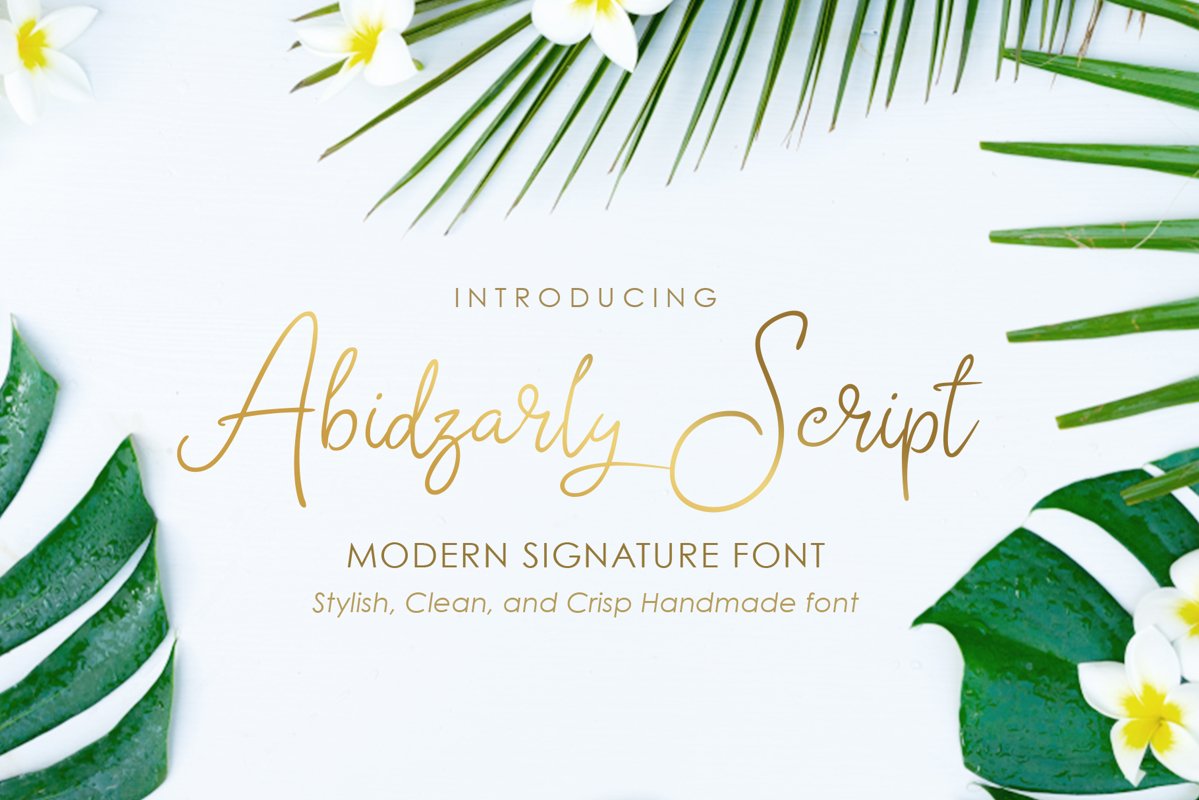
Abidzarly Script
**Introducing**
A modern signature style font that have stylish, clean, simple and crisp handmade font called Abidzarly Script.
Abidzarly Script are made carefully to fit the need of modern calligraphy font that have the smooth and flowing in it's glyphs. The glyps shape are simple yet sophisticaded, It's easy to see,memorable and have that luxury feelings when you look at it.
Abidzarly will perfect for Editorial, Branding, Print product, etc.
Abidzarly have Opentype Features and multilingual accent alongside with the numeric and symbols.
It's perfect for any purpose, logotype, branding, clothing, posters, advertisement, packaging, and many more as you feel fit.